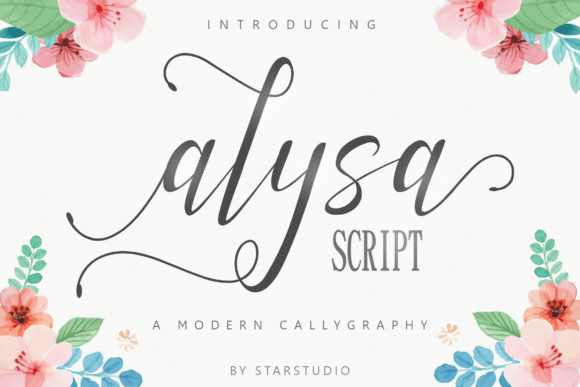
Unleash the charm and elegance of your designs with Alysa Script Font, the captivating script font that adds a touch of handwritten artistry to your creative projects. Step into a world of visual allure as you explore the beauty of Alysa's graceful curves, playful flourishes, and enchanting swashes. Let your designs dance with personality and evoke a sense of timeless sophistication.
From branding and logos that exude a touch of luxury to greeting cards and wedding stationery that radiate warmth and romance, Alysa Script Font is the perfect choice for adding a personal touch to your designs. Its super flirtatious baseline adds a touch of whimsy and charm, making it ideal for quotes, social media posts, and any design that demands a dash of authenticity.
Picture your designs adorned with Alysa's elegant script, capturing hearts and captivating attention. Its versatility knows no bounds, whether you're crafting stunning logos that leave a lasting impression, creating eye-catching social media graphics that demand engagement, or designing enchanting wedding invitations that set the tone for a magical celebration.
Immerse yourself in the world of Alysa Script Font and discover the endless possibilities it holds. Let your creativity flourish as you witness your designs transform into works of art, imbued with the timeless beauty and charm of handwritten calligraphy. Embrace the allure of Alysa Script Font and elevate your designs to new heights of elegance and sophistication.